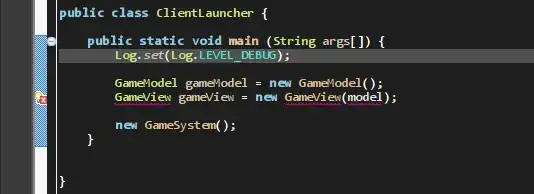
My Eclipse IDE looks horrible ever since I installed Xubuntu.
This question was never answered, but it's exactly what I have trouble with: Fonts look bad in Microsoft Office using Wine
My eclipse font is also a windows font Consolas. I'm really used to it, and I'd love to get it back.
EDIT: Here's another unanswered question related to windows fonts: Fonts in Google Earth look bad even after installing Microsoft Fonts.
I can't give you a fully qualified answer here but some hints:
• Windows core fonts are heavily optimized for Windows. They look slightly off everywhere else.
• The width of boldface and regular is different in most fixed-width fonts. Reconfigure your eclipse appearance settings so that no boldface is used or try 'ubuntu mono' which just works.
• Droid Sans Mono, DejaVu Sans Mono are also viable alternatives to the Sans Mono default.
• The Inconsolata font tries to reach the Consolas experience under Linux.
• The best answer I've found yet! Why doesn't Inconsolata have a normal style? It only allows italics, medium and others. The medium seems to be doing it. I guess it's just the nomenclature? – Wulf Mar 06 '14 at 00:14
• medium is slightly bolder than normal. Perhaps the font author thought that normal would be too thin. – aquaherd Mar 06 '14 at 07:51